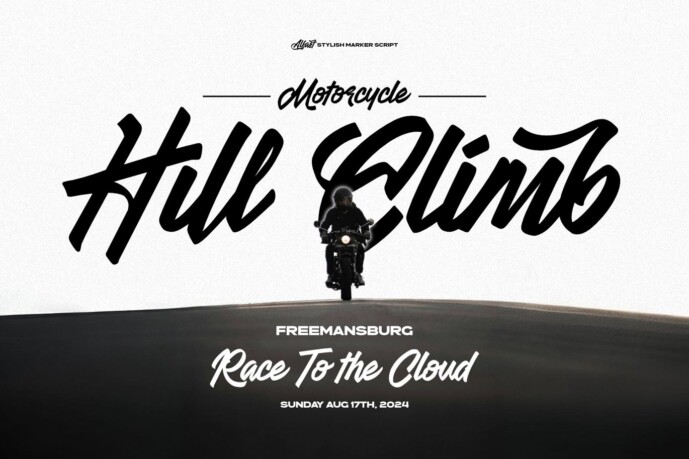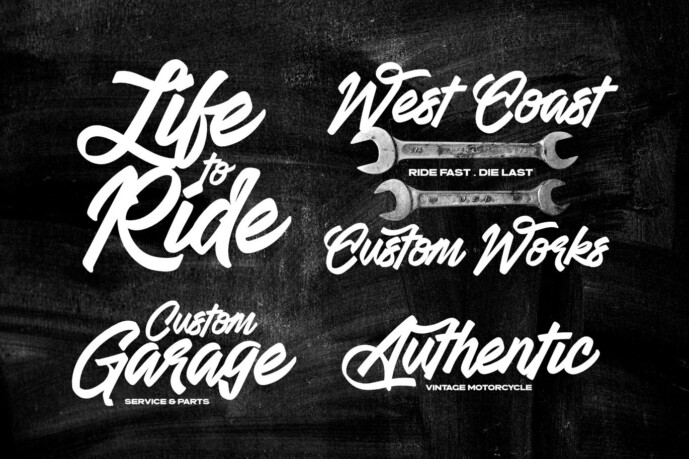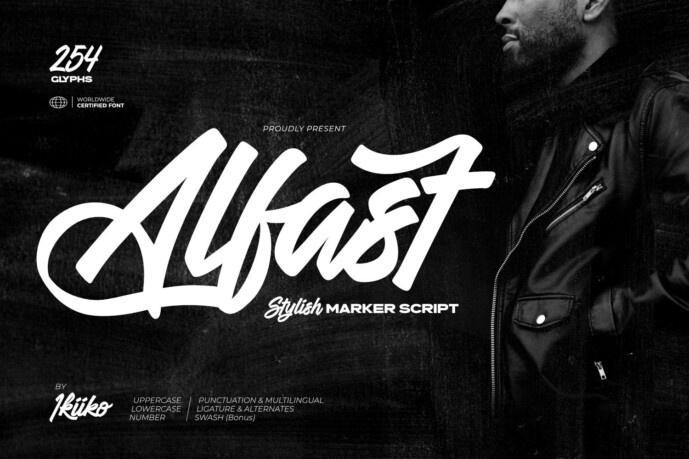
Alfast Font
Designer: ikiikowrk
Alfast Font is a bold and dynamic font that embodies the fluid and organic strokes of a marker. Characterized by its hand-drawn look, the font features soft, flowing curves and connected letters, reinforcing its natural and handwritten feel.
Its thick and prominent weight ensures high visibility and a strong presence, making it ideal for designs that need to stand out. This versatile font is well-suited for many creative applications. It is particularly suitable for branding, as it gives logos and business identities a rebellious, avant-garde look.
This font is ideal for creating poster design, vintage logo, movie title, film title, headline, clothing, magazine layout, fashion and street wear, quotes, or simply as a stylish text overlay on any background image that creates striking headlines and titles that grab attention.